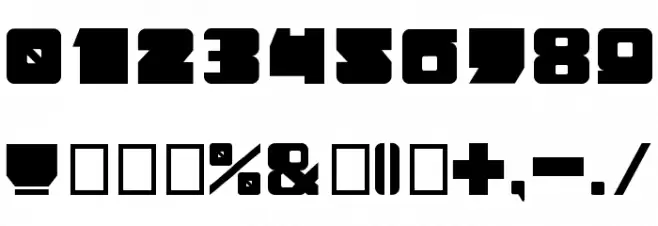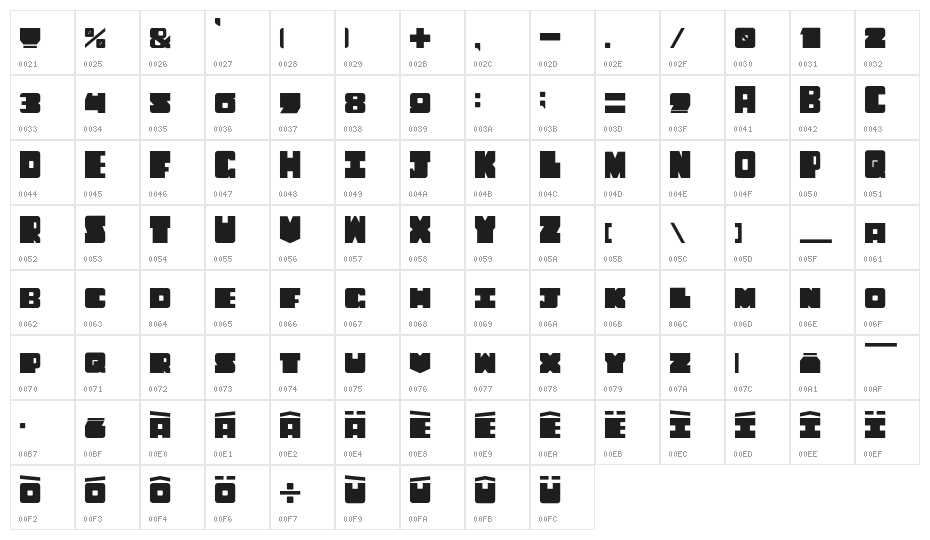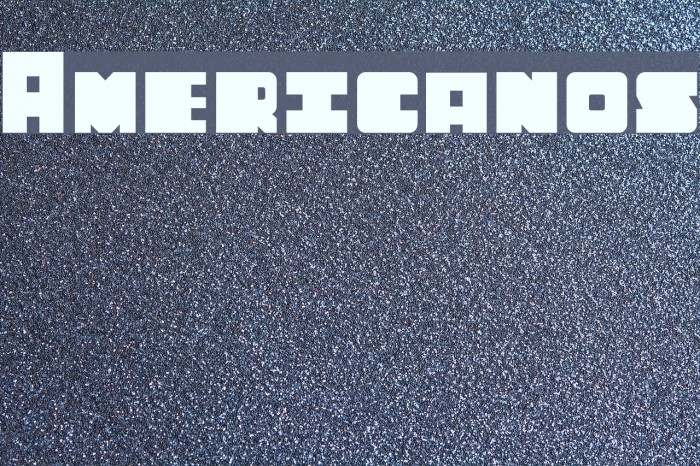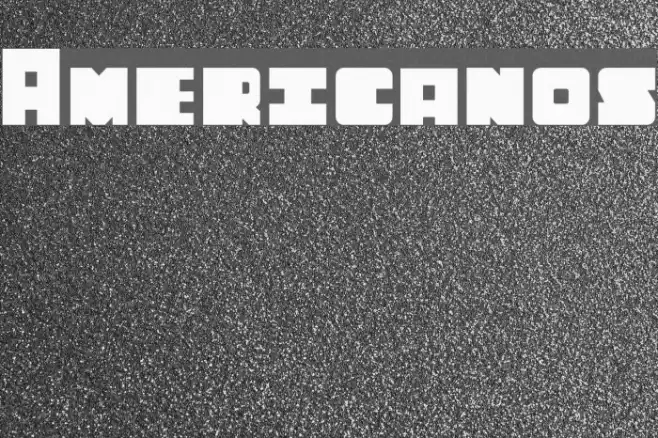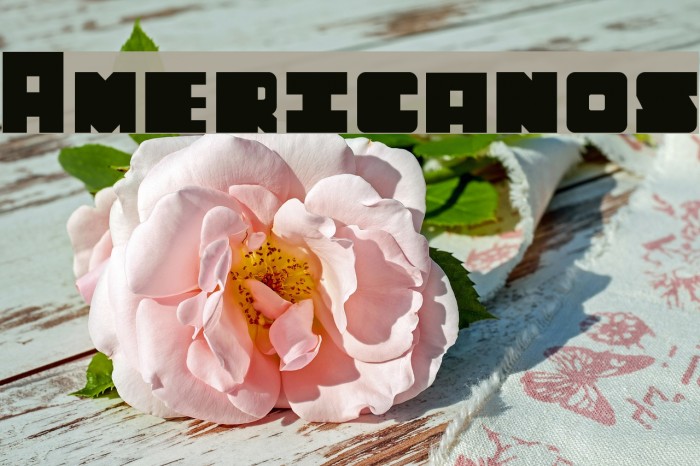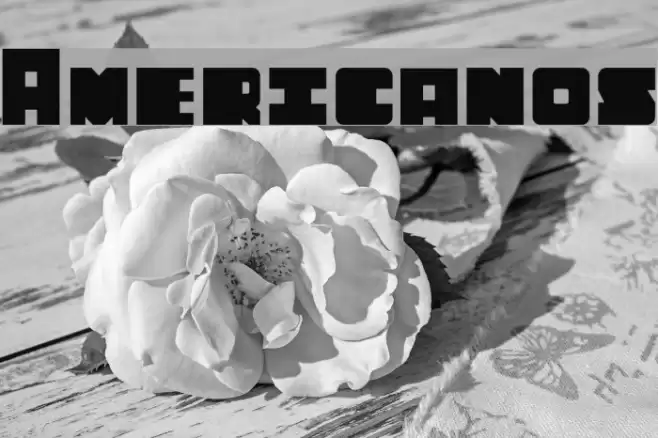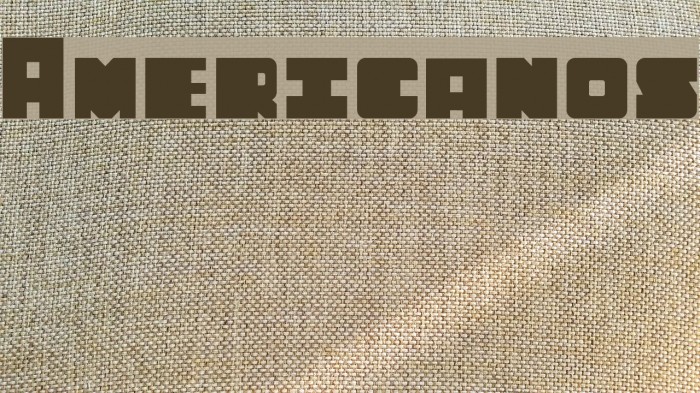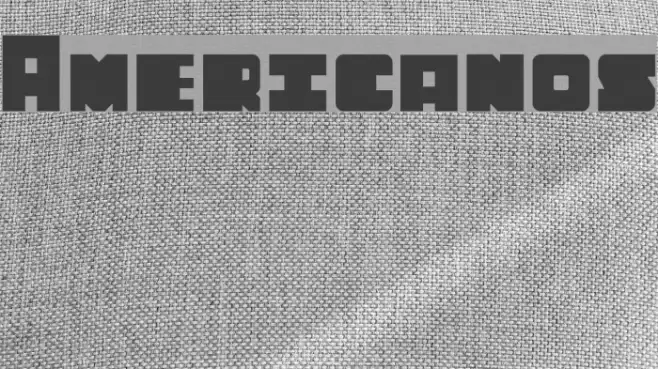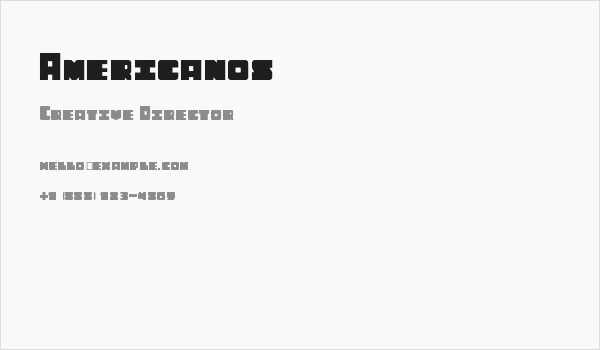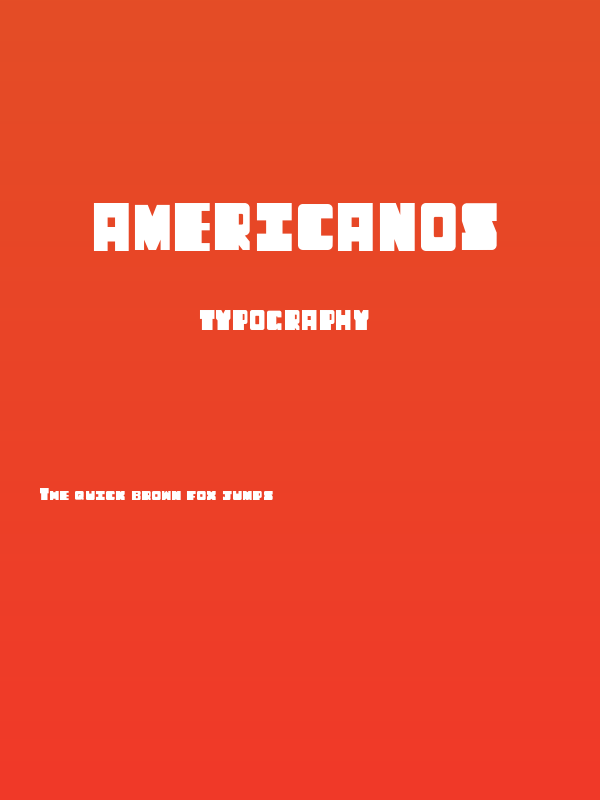
Americanos Font
Americanos Description
This bold and striking font features a geometric and blocky design, characterized by its thick, uniform strokes and angular shapes. The uppercase and lowercase letters maintain a consistent width, giving the font a monospaced appearance. The numbers and special characters follow the same bold and angular style, ensuring a cohesive look across all elements. The font's strong presence and unique design make it ideal for attention-grabbing headlines and logos. Its high contrast and solid structure lend a modern and impactful feel, suitable for projects that require a bold statement.